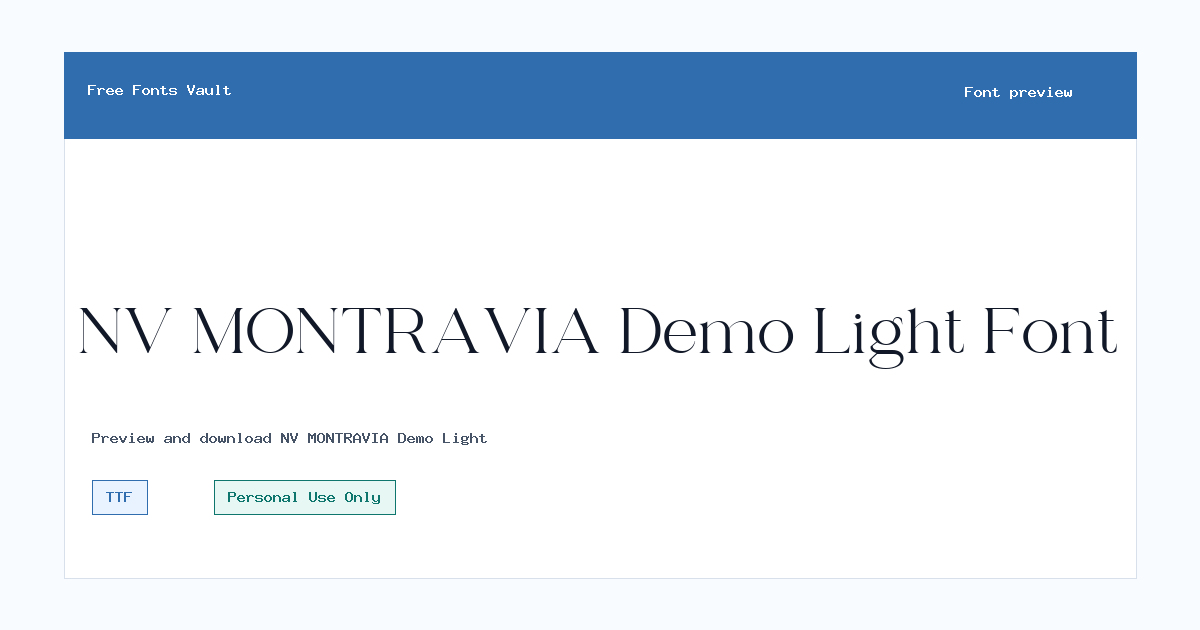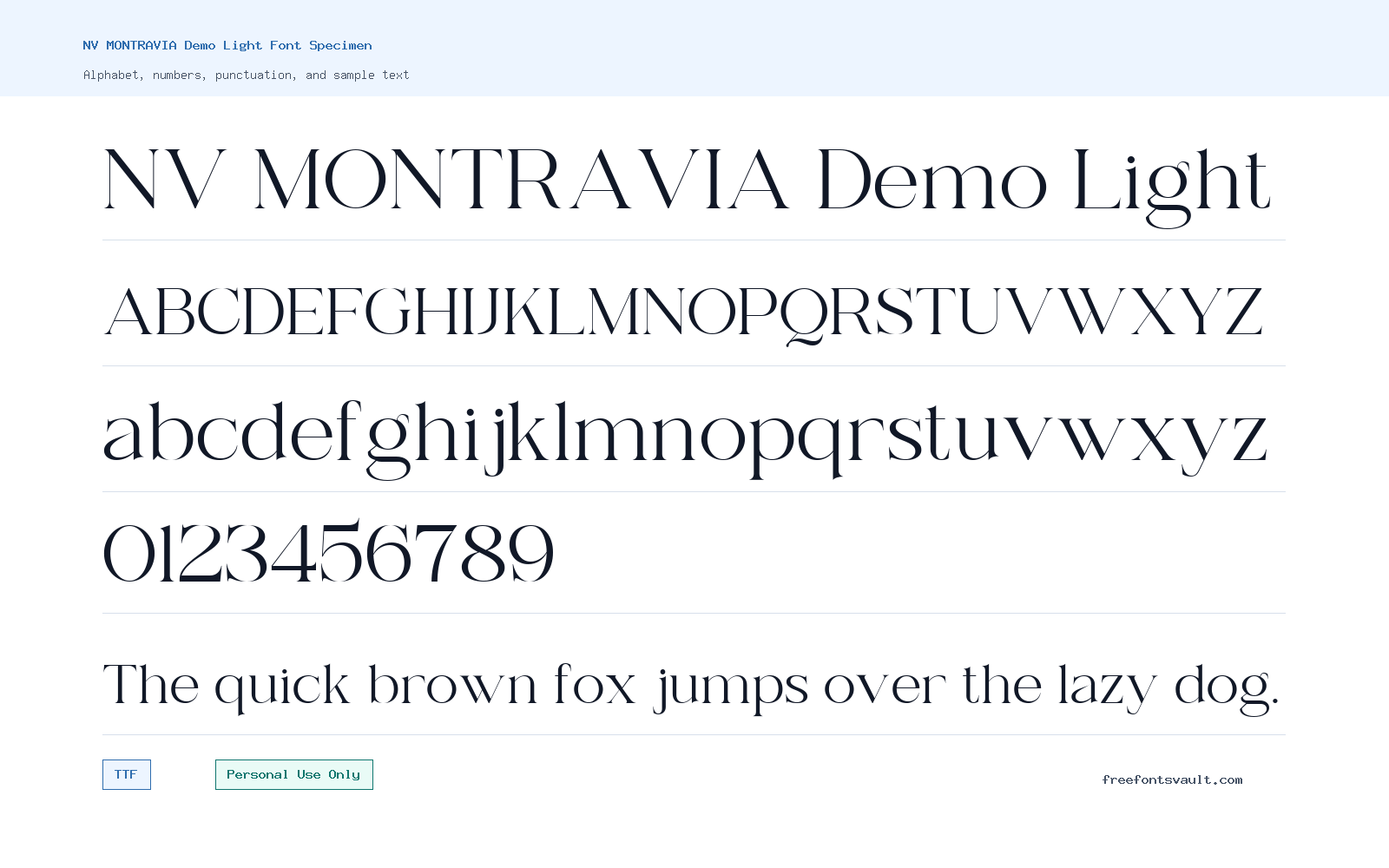
NV MONTRAVIA Demo Light
NV MONTRAVIA Demo Light font.
NV MONTRAVIA Demo Light is a light-weight serif font from NovaraType, offered as a demo style for personal-use projects. Its lighter weight makes it a good choice when you want refined display text without a heavy or crowded look.
About NV MONTRAVIA Demo Light
NV MONTRAVIA Demo Light is best approached as an elegant display serif rather than a general-purpose body font. The available style is a Light weight with normal styling, so it should feel more delicate than bold headline faces. That makes it useful for titles, logo drafts, editorial-style headers, invitation layouts, portfolio covers, packaging mockups, and poster text where the words have enough room to breathe. Because only one TTF style is listed for this download, it is better suited to focused visual use than to full brand systems that need many weights, italics, or extended typographic hierarchy.
For design work, try NV MONTRAVIA Demo Light first in short phrases: brand names, section headings, cover titles, quote graphics, and refined social posts. Light serif fonts can lose strength at very small sizes, especially on busy backgrounds, so test it in the preview with the exact words you plan to use. If the thin strokes start to disappear, increase the font size, add contrast, or use it only for the main title. For logo concepts and posters, give the letters generous spacing and keep the surrounding design clean so the type remains readable.
This font can work nicely in web mockups, landing page hero sections, fashion-style layouts, portfolio concepts, and editorial compositions. Pair it with a simple sans serif for navigation, captions, buttons, and longer copy. A neutral sans serif will keep the layout readable while letting the serif headline carry the visual tone. Avoid pairing it with another decorative serif unless you are intentionally building a more ornamental layout, because competing display fonts can make the page feel unfocused.
- Light-weight serif style with a refined display feel
- Best for short, spacious text rather than dense paragraphs
- Suitable for testing elegant headlines, logo drafts, posters, and web hero mockups
- Logo drafts and personal branding concepts
- Editorial headers and magazine-style layouts
- Portfolio covers and presentation title slides
- Invitation designs and refined social media graphics
- Website hero text and landing page mockups
- Packaging concepts for non-commercial presentations
Use NV MONTRAVIA Demo Light where the text can be large enough to show its light serif character. It is strongest in short display settings such as titles, names, and headings. For readable layouts, pair it with a plain sans serif for body copy and keep background contrast high. If you plan to use it in a logo, brand identity, website, or client project, confirm commercial licensing first.
What weight is NV MONTRAVIA Demo Light?
The listed weight is 300, which is commonly used for a light style.
Is this a good font for body text?
It is better for display use than long body text. Because it is a light serif style, test readability carefully if you use it below headline sizes.
What should I pair with NV MONTRAVIA Demo Light?
Pair it with a clean sans serif for paragraphs, buttons, menus, and captions. This helps the serif headline stand out while keeping the rest of the design easy to read.